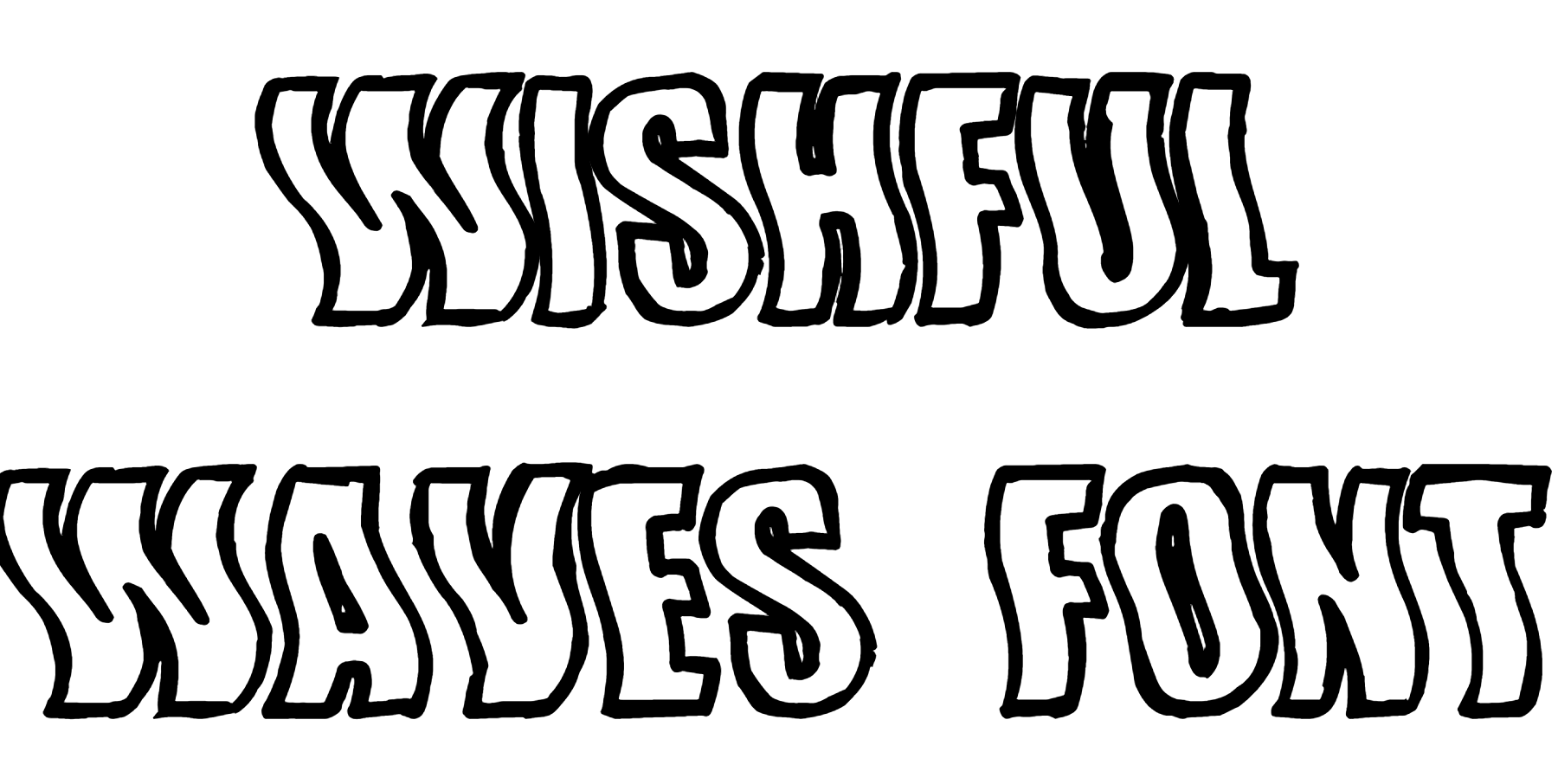
Wishful Waves
Wishful Waves is a fancy font. Bold and full of character, it's built to stand out rather than blend in. You can download it for free and test it with your own words in the preview above.
What You Can Type With Wishful Waves
With complete upper and lowercase letters and all ten digits, Wishful Waves is ready for real wording, not just a single headline. Punctuation is limited, so look at the character map if you need a specific symbol. There are no accented letters like é or ñ, so it's best kept to English text.
Where Wishful Waves Works Best
Wishful Waves is a natural fit for posters, logos and eye-catching headlines. The file has no kerning data, so in logos and big titles check pairs like AV, To and Wa and tighten the spacing by hand. Use it for one standout word or headline and let simpler fonts handle the rest.